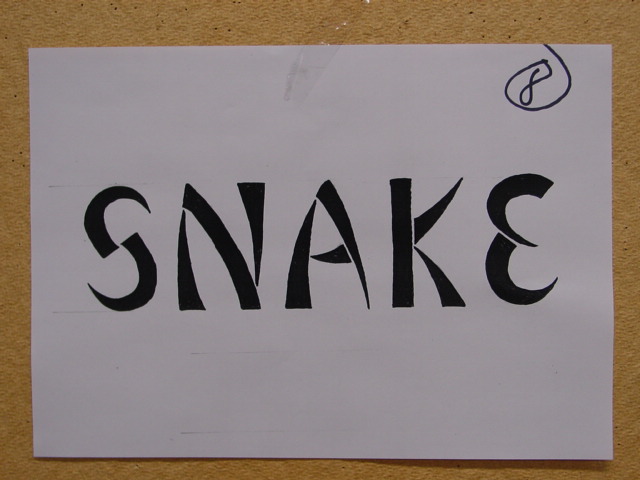
![]() ![]() The 4 day-workshop takes place at the Willem de Kooning academy in Rotterdam. The goal of the workshop is to make a new typeface for a signage system near Rotterdam Blaak train station. The typeface and the signage system will be developed by the whole group in three and a half days. The group of students consist of 12 students from the graphic design department. 1) define the feeling and the look of the type by drawing the word 'SNAKE' 2) choose one and develop this into a whole font 3) digitalize the font 4) present it in the right environment ![]()
![]() The first day every single student started to sketch the word 'SNAKE' by hand. Plain pen and paper work. In the end of the day 12 different versions of this word were putted to the wall. From all the different sketches, one type design was chosen and was the next days going to be developed by the whole group into a complete font. Now the feeling and the look of the typeface are defined. Important is not only the functionality (can you read it from 100 meters distance?) but also the own character/atmosphere of the type. Why to choose this font for the signage system, and not Frutiger again? The first picture shown here on the top left, is the one which was chosen. ![]() ![]()